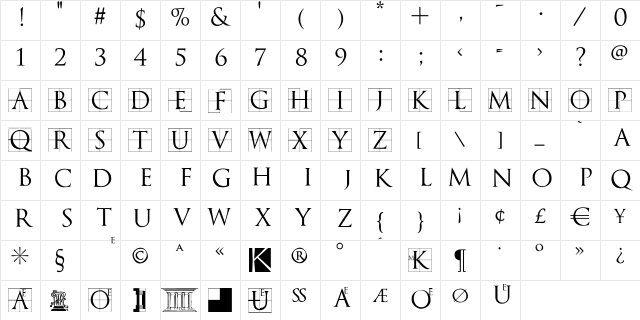
TrajanusBricks Regular
Design Context for TrajanusBricks Typeface
TrajanusBricks takes a measured approach to typography — its balanced proportions and neutral character make it a reliable workhorse for both digital and print work.
Pro Tip: Pair TrajanusBricks with a font of contrasting weight or personality to build a more expressive typographic hierarchy.